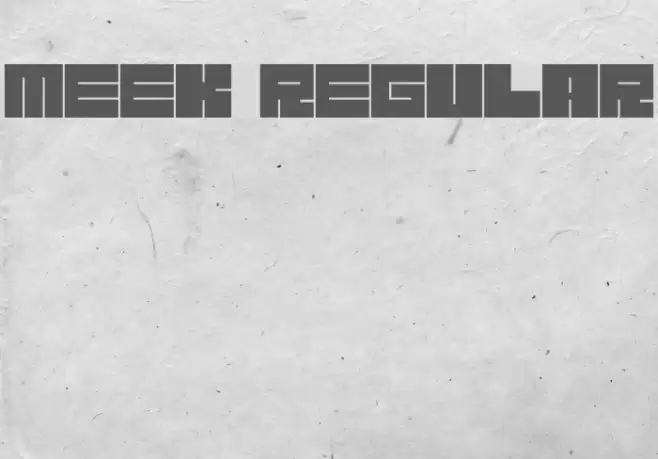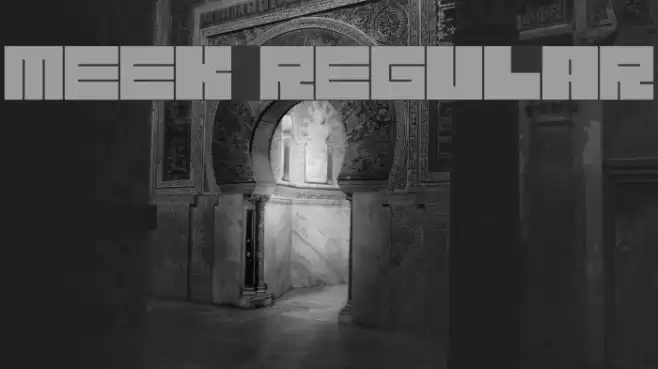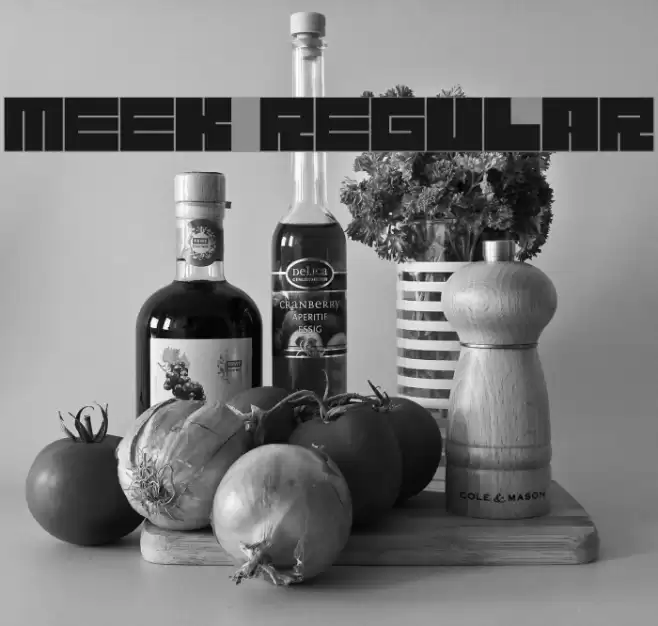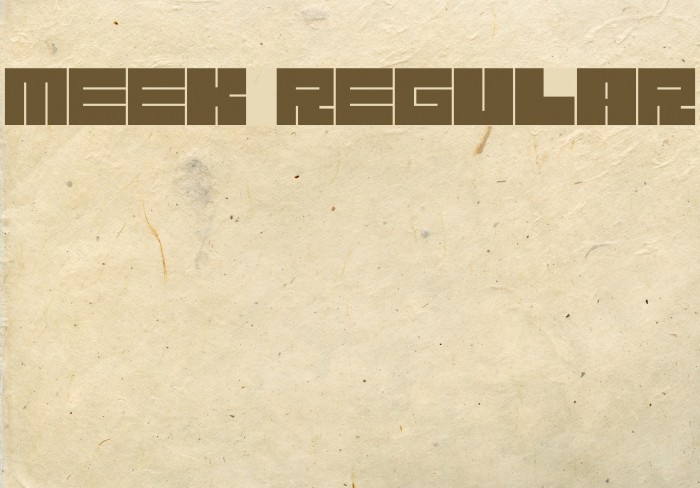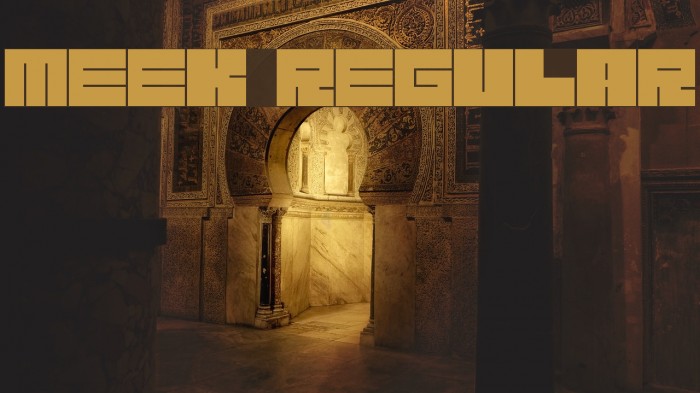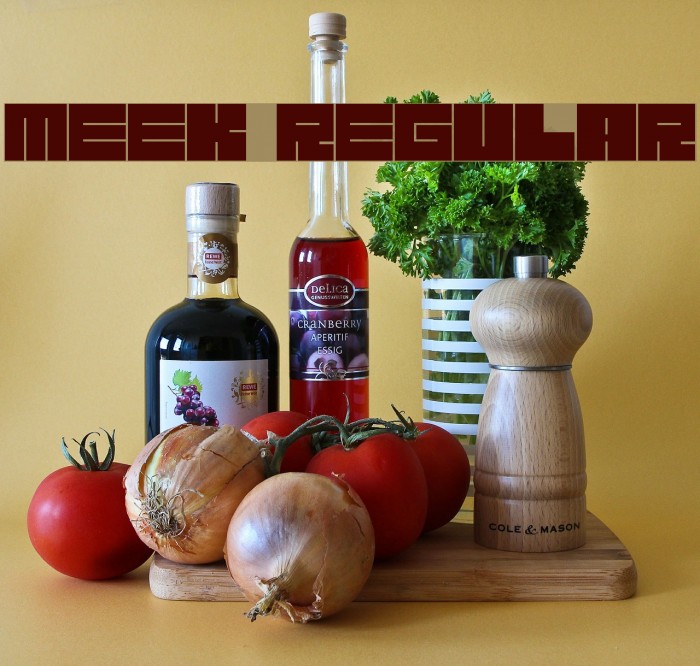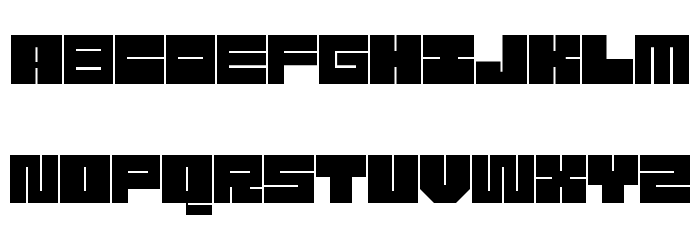
Meek Regular Font
Meek Regular Description
This font features a bold, geometric design with a strong, block-like appearance. Each character is constructed with sharp angles and straight lines, giving it a modern and futuristic feel. The uppercase letters are uniform in height, while the lowercase letters maintain a similar structure, ensuring consistency across the typeface. Numbers and special characters follow the same design principles, making the font versatile for various uses. The overall look is striking and impactful, ideal for making a statement in any design project.
A bold, geometric font with a modern, block-like design from Futuristic fonts.